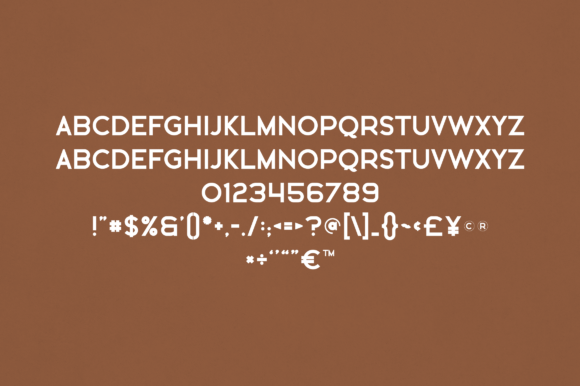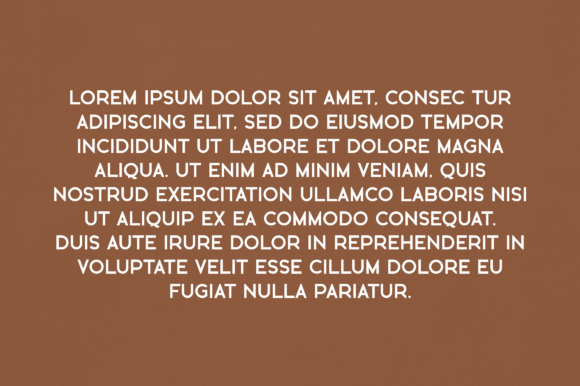
Introducing Hape Font: Elevate Your Typography with Elegance and Versatility
In the world of design, typography plays a crucial role in conveying messages, expressing creativity, and establishing brand identities. For designers and crafters seeking to elevate their projects with a touch of sophistication and uniqueness, the Hape Font is an exceptional choice. This elegant and versatile display font is designed to transform your typography into something truly remarkable, making it perfect for a wide range of applications.
The Essence of Hape Font
Hape Font is not just any ordinary font; it’s an exquisite display typeface that brings a level of elegance and refinement to any design project. Its versatility allows it to seamlessly integrate into various contexts, from logos and branding materials to headlines, packaging designs, and even plain text. The distinctive character of Hape Font ensures that your typography stands out, capturing the attention of your audience and leaving a lasting impression.
Applications of Hape Font
The possibilities with Hape Font are endless, thanks to its adaptability and stylish appeal. Here are some of the key areas where Hape Font can make a significant impact:
- Branding Projects: Establish a strong and elegant brand identity with Hape Font. Its unique style can help differentiate your brand in a crowded market, conveying a sense of luxury, sophistication, or whatever message you wish to communicate.
- Home-Ware Designs: Add a touch of class to your home-ware designs, making them more appealing and distinctive. Whether it’s product labels, packaging, or promotional materials, Hape Font can elevate the aesthetic of your home-ware brand.
- Product Packaging: Make your products stand out on the shelves with eye-catching packaging designs powered by Hape Font. Its elegance can transform ordinary packaging into a compelling visual statement.
- Magazine Headers: Use Hape Font to create captivating headers and titles for your magazine or digital publications. Its stylish appeal can draw readers in, enhancing the overall reading experience.
- Text Overlay: For those looking to add a sophisticated text overlay to background images, Hape Font offers a stylish solution. It can seamlessly blend with any background, adding depth and character to your visual content.
Why Choose Hape Font?
Choosing Hape Font for your design projects comes with numerous benefits:
- Unique Typography: Hape Font offers a distinctive style that can set your designs apart from the competition.
- Elegance and Versatility: Its elegant appearance and versatile nature make it suitable for a wide range of applications.
- Enhanced Brand Identity: For branding projects, Hape Font can contribute to creating a strong and memorable brand image.
- Easy Integration: Designed to be user-friendly, Hape Font can be easily integrated into various design projects and software.
In conclusion, Hape Font is a remarkable addition to the world of typography, offering designers and crafters an elegant and versatile display font that can elevate their projects to new heights. Its wide range of applications, coupled with its unique style, makes it an invaluable resource for anyone looking to create truly unique and captivating designs. Whether you’re working on branding projects, home-ware designs, product packaging, or simply looking for a stylish text overlay, Hape Font is an excellent choice that promises to enchant every logo, headline, and plain text it touches.
Embrace the elegance and versatility of Hape Font in your next design project and experience the transformative power of typography.